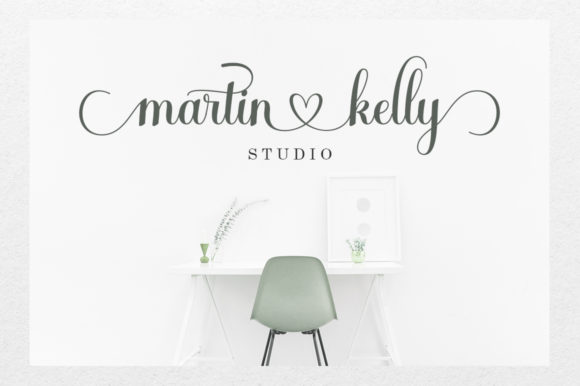
Billy Betty Font: The Elegant Calligraphy Font for Romantic Designs
The world of typography is vast and diverse, offering a multitude of fonts to suit various design needs. Among these, the Billy Betty font stands out for its elegance and romantic appeal. This article will delve into the details of the Billy Betty font, exploring its features, benefits, and uses in design.
Introduction to Billy Betty Font
Billy Betty is an elegant calligraphy font that has captured the hearts of designers with its romantic and dreamy aesthetic. This font is characterized by its beautiful, flowing script and the incorporation of hearts as ornaments, adding a touch of whimsy and charm. The Billy Betty font is not just a simple typeface; it’s a design element that can elevate any project with its sophisticated and enchanting appeal.
Key Features of Billy Betty Font
- Elegant Calligraphy Style: Billy Betty boasts a classic calligraphy look, making it perfect for designs that require a touch of elegance and refinement.
- Hearts as Ornaments: One of the distinctive features of this font is the use of hearts as ornaments. These add a playful and romantic touch to any text, making it ideal for designs related to love, weddings, and Valentine’s Day.
- PUA Encoded: The Billy Betty font is PUA (Private Use Area) encoded. This encoding allows for easy access to all the glyphs and swashes, providing designers with a wide range of creative possibilities. With PUA encoding, users can access additional characters and swashes using programs like Adobe Illustrator, Adobe Photoshop, or FontLab.
Benefits of Using Billy Betty Font
The Billy Betty font offers several benefits that make it a preferred choice among designers:
- Versatility: Despite its specific romantic and elegant vibe, the Billy Betty font can be used in a variety of design projects, from wedding invitations and Valentine’s Day cards to branding and packaging.
- Easy to Use: Thanks to its PUA encoding, designers can easily access and use the font’s extensive features without needing specialized software.
- Unique Aesthetic: The font’s distinctive calligraphy style and heart ornaments provide a unique aesthetic that can set a design apart from more generic typefaces.
Ideal Uses of Billy Betty Font
Billy Betty’s romantic and dreamy qualities make it particularly suited for:
- Wedding and Event Stationery: Invitations, save-the-date cards, and wedding menus designed with Billy Betty are sure to impress.
- Valentine’s Day and Love-themed Designs: The font’s heart ornaments make it a natural fit for any design celebrating love.
- Branding and Packaging: For businesses in the luxury, beauty, or lifestyle sectors, Billy Betty can add a touch of elegance to their branding and packaging.
Tips for Using Billy Betty Font Effectively
To make the most of the Billy Betty font, consider the following tips:
- Pair with Complementary Fonts: For optimal results, pair Billy Betty with simpler fonts to create contrast and ensure readability.
- Experiment with Swashes: Take advantage of the font’s PUA encoding to explore different swashes and glyphs, adding uniqueness to your designs.
- Use Appropriately: While Billy Betty is versatile, it’s most effective when used for projects that align with its romantic and elegant vibe.
The Billy Betty font is a stunning addition to any designer’s toolkit. Its elegant calligraphy style, combined with heart ornaments and PUA encoding, makes it a versatile and unique typeface suitable for a variety of projects. Whether you’re designing wedding stationery, love-themed merchandise, or simply looking to add a touch of elegance to your branding, Billy Betty is sure to impress. By understanding its features, benefits, and ideal uses, designers can leverage the full potential of the Billy Betty font to create romantic and dreamy designs that stand out.
Frequently Asked Questions (FAQs) About Billy Betty Font
- Q: What is the Billy Betty font?
- A: The Billy Betty font is an elegant calligraphy font featuring hearts as ornaments. It’s PUA encoded for easy access to glyphs and swashes.
- Q: Can I use Billy Betty for my wedding invitation design?
- A: Absolutely! Billy Betty’s romantic and elegant style makes it perfect for wedding invitations, save-the-date cards, and other wedding-related stationery.
- Q: How do I access the additional glyphs and swashes in Billy Betty?
- A: The font’s PUA encoding allows you to access these using compatible software like Adobe Illustrator, Adobe Photoshop, or FontLab.